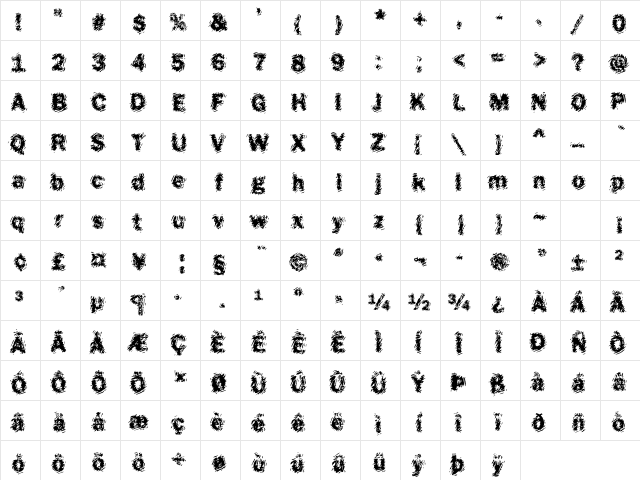
DTCFunkyM18 Regular
Design Context for DTCFunkyM18 Typeface
DTCFunkyM18 trades formality for fun, with bouncy, characterful letterforms that bring warmth and energy to any project.
Font Pairing: Pairs well with a rounded or humanist sans for body copy, maintaining the friendly tone without relying on DTCFunkyM18 to carry extended reading.
Pro Tip: Avoid using DTCFunkyM18 for long passages of text — it works best for headlines, labels, and short calls to action.